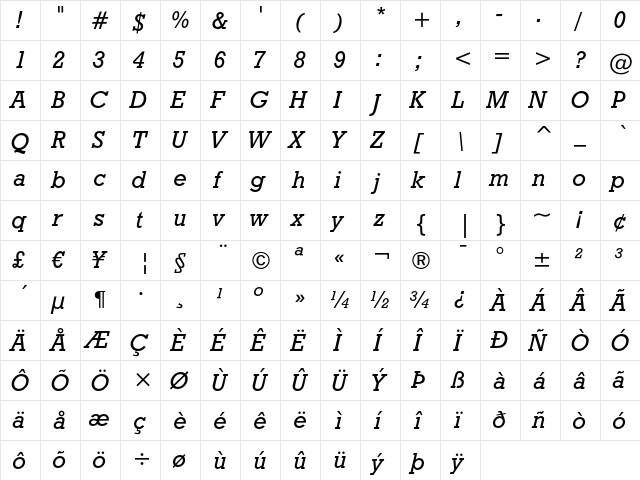
Geometric Slabserif 712 Medium Italic
Design Context for Geometric Slabserif 712 Typeface
Geometric Slabserif 712 features prominent, blocky serifs that give it a confident, grounded presence — equally at home in editorial settings and bold branding work. The dynamic lean of this cut emphasises speed and emphasis in any layout.
Suited to magazines, political campaign materials, bold packaging, and any setting where authority matters.
Pro Tip: Use Geometric Slabserif 712 for headlines and subheadings where its slab serifs can make an impression. It also holds up well in mid-size body copy thanks to its sturdy construction.